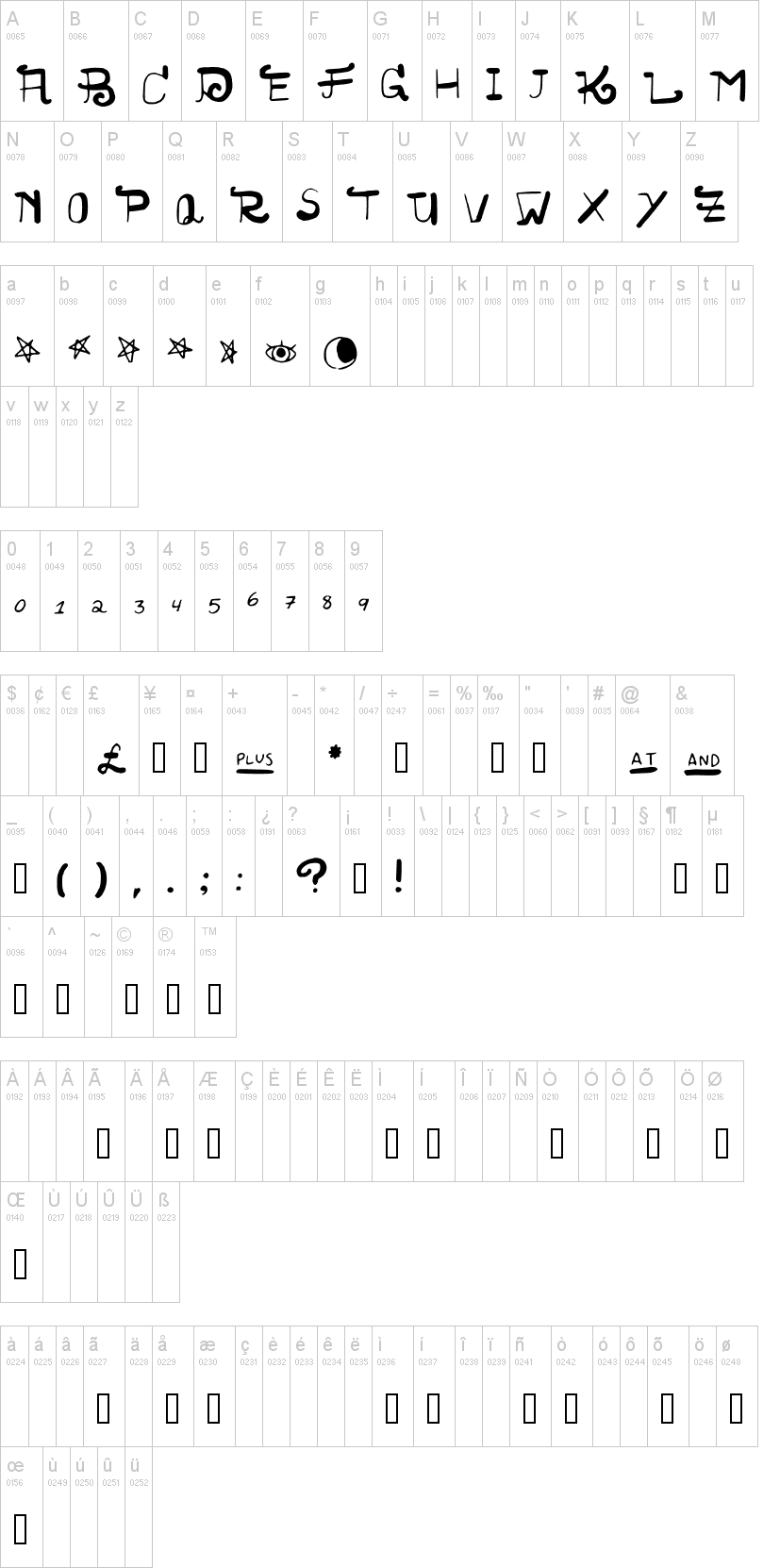
Шрифт Nocturne
Used http://www.myscriptfont.com/ to make this fancy font from my handwriting. Again, in the future hopefully I can contribute some real nice polished fonts. But here's to now!